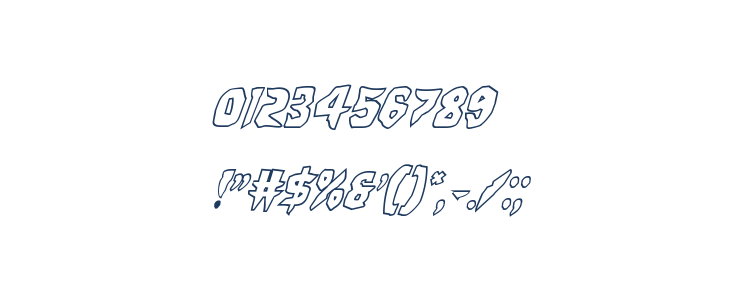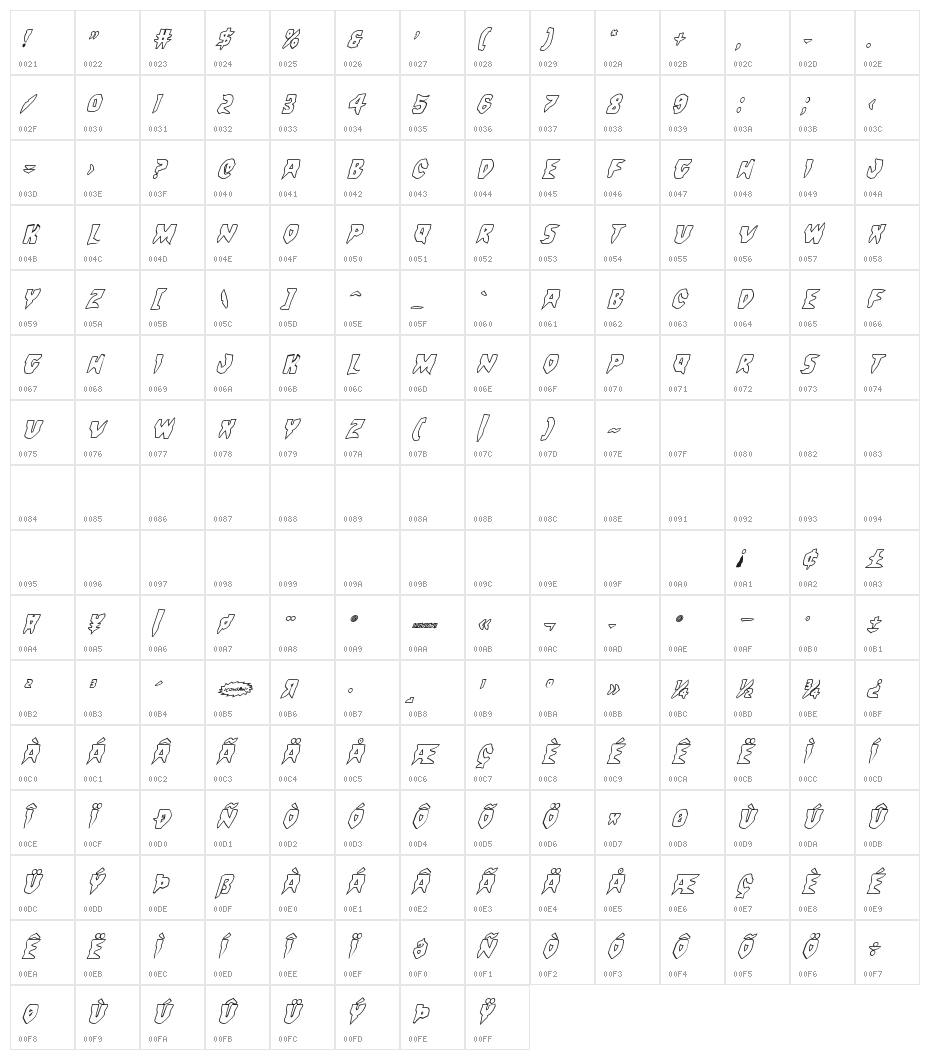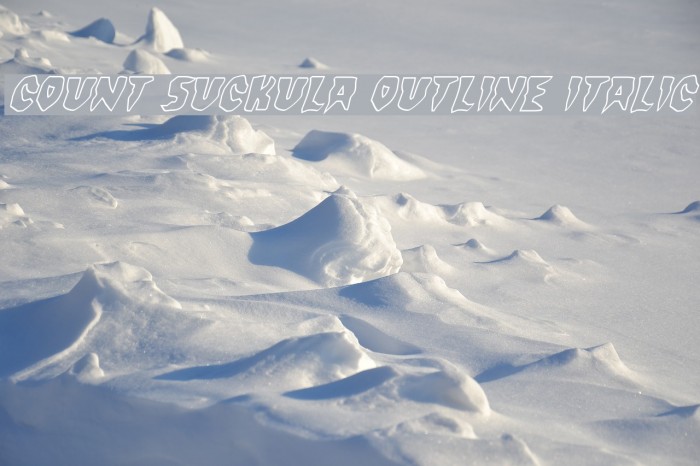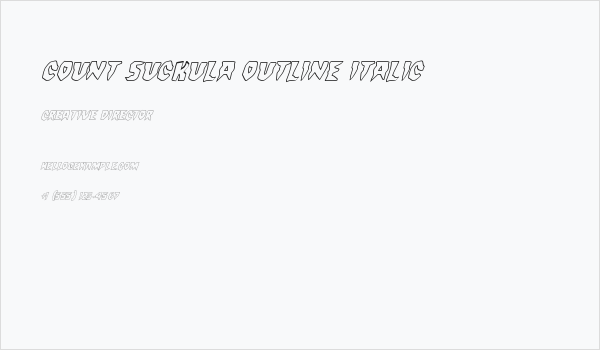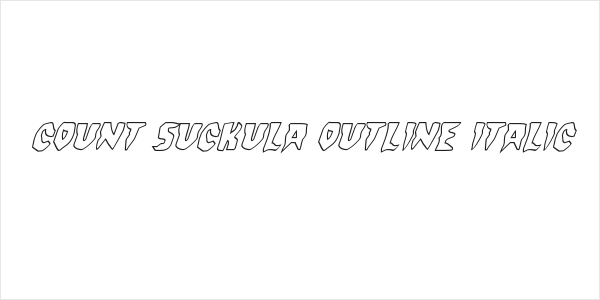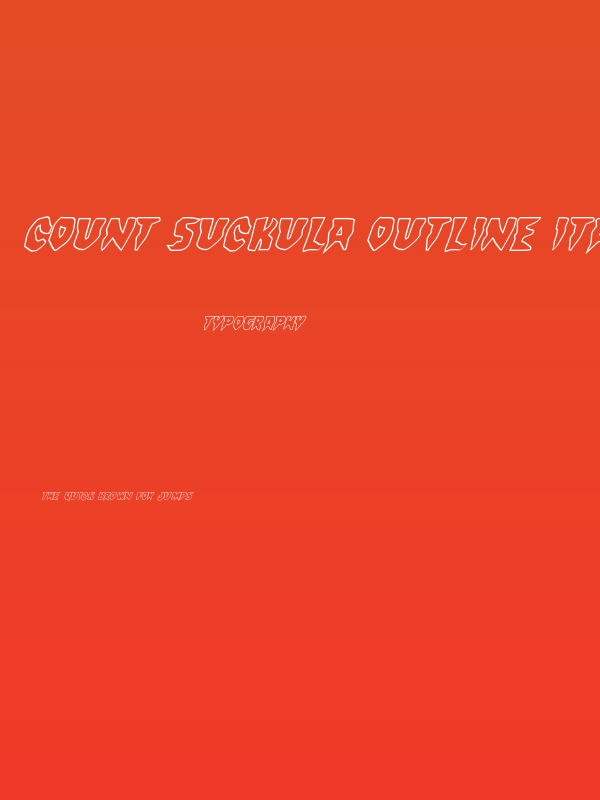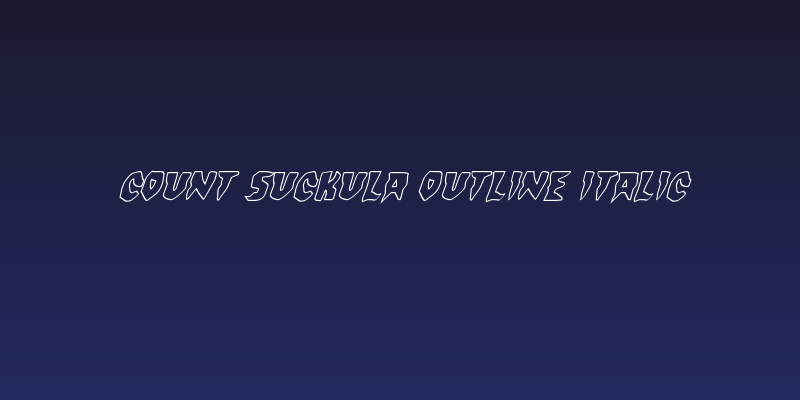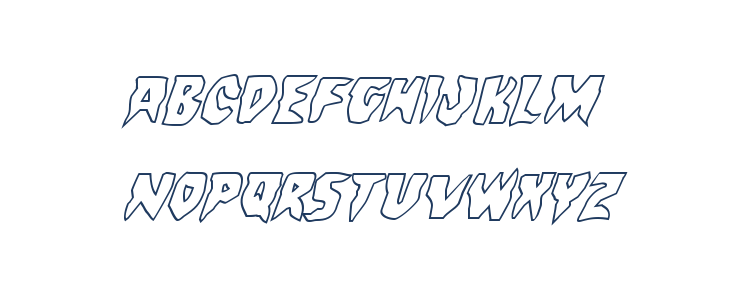
Count Suckula Outline Italic Font
Count Suckula Outline Italic Description
This font features a bold, outlined style with sharp, angular edges that give it a dynamic and energetic appearance. The italic slant adds a sense of motion and urgency, making it stand out in any design. The uppercase and lowercase letters maintain a consistent style, with the numbers and special characters following suit. The outline effect creates a striking visual impact, suitable for attention-grabbing headlines or creative projects. Its unique design is both modern and slightly edgy, perfect for themes that require a bold statement.
Overall StyleModern, Edgy
Proposed ProjectsIdeal for posters, logos, video game graphics, and Halloween-themed designs.